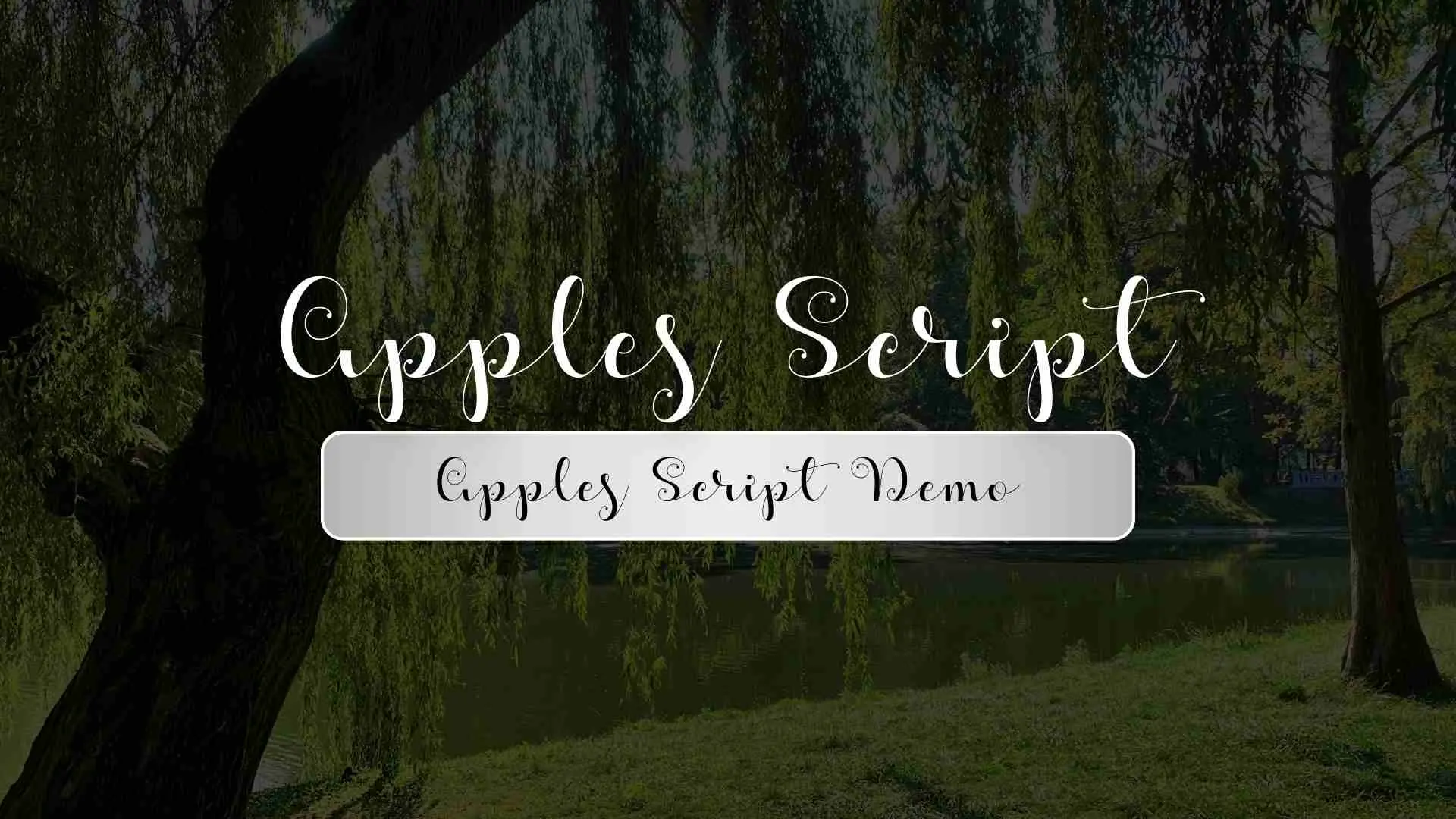
The font Apples Script Demo, designed by Misti's Fonts, falls under the Handwritten, Script category & Apples Script font family. Its smooth, flowing letterforms make it a versatile choice for projects that require both elegance and readability. Apples Script is particularly well-suited for Branding, Quotes, Social Media, Children's Products, Invitations, Greeting Cards and Merchandise. With its balance of simplicity and decorative appeal, this font brings a polished touch to both personal and professional designs.